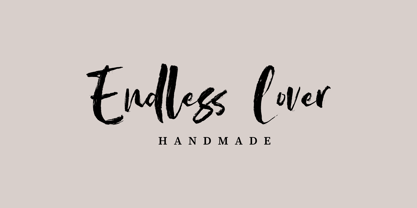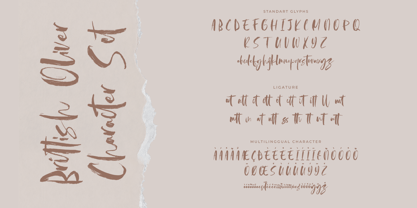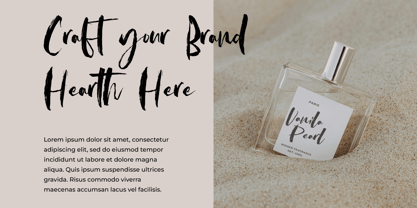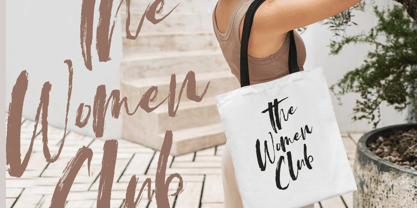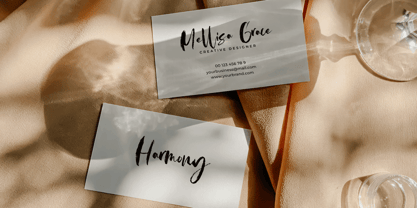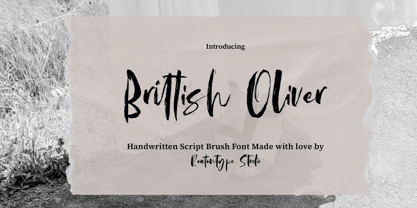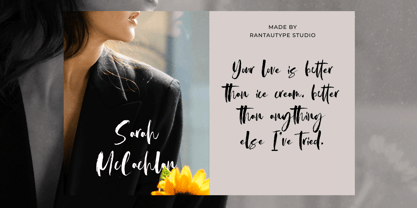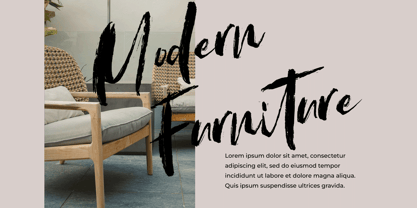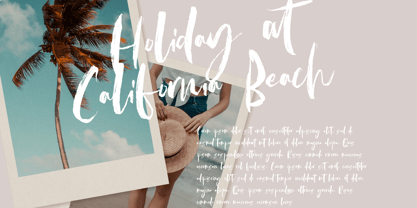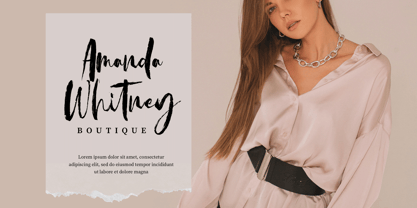
Brittish Oliver
by RantauType
The Brittish Oliver Font Family was designed by Yudi Pratama Chandra and published by RantauType. Brittish Oliver contains 1 styles. More about this family
Brittish Oliver is handwritten script font made by rantautype studio. Brittish Oliver is a perfectly choice for any creative endeavor, creating, modern, chic, lifestyle design such as logotype, title, cover, branding, invitations, wedding designs, display and magazine, social media posts, advertisements, printed quotes, product packaging, corporate brand, product designs, labels, photography, watermarks, special events and any other project with handwritten touch.
• Standart Glyphs
• Numberial and Functional
• Ligature and alternate